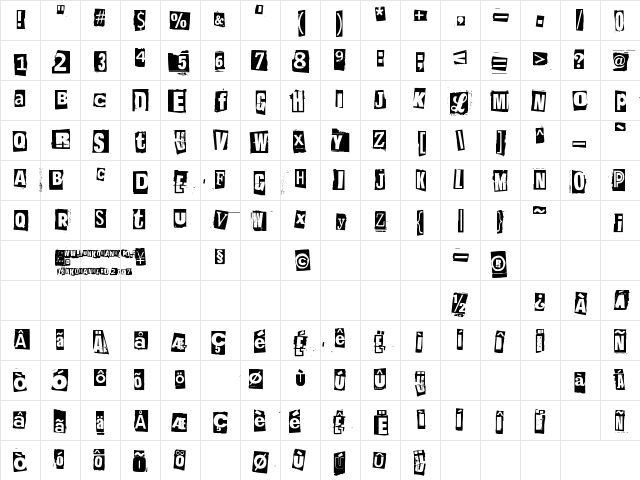
Postinkantaja Job Regular
Designer: junkohanhero
Design Context for Postinkantaja Job
Postinkantaja Job is a composed and adaptable typeface that performs quietly and consistently across a wide range of design contexts.